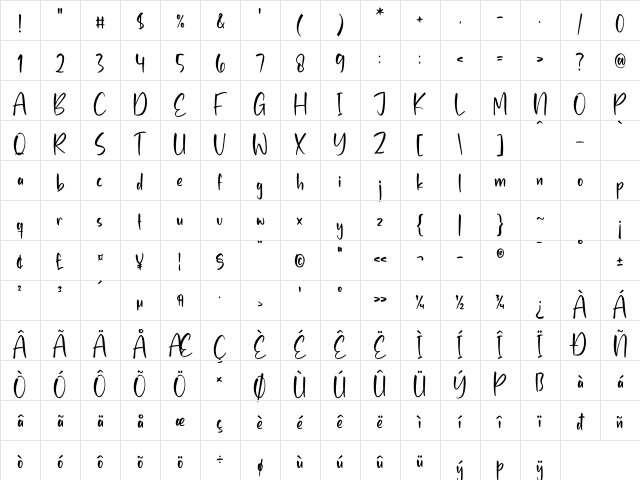
Brodslice Regular Free Font
Brodslice Regular
Foundry: Perspectype Studio
Designer: Perspectype Studio
Design Context for Brodslice
Brodslice is a composed and adaptable typeface that performs quietly and consistently across a wide range of design contexts.